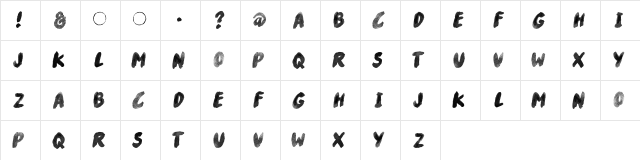
River Drive Regular
Design Context for River Drive Typeface
River Drive is a composed and adaptable typeface that performs quietly and consistently across a wide range of design contexts.